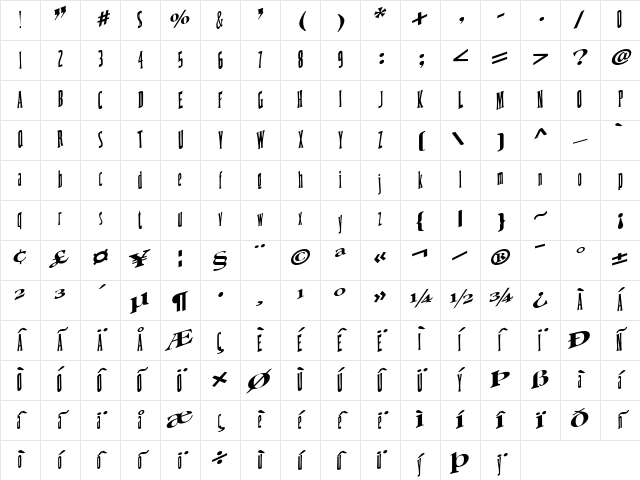
CoastWise67 Regular Free Font
CoastWise67 Regular
Complete CoastWise67 Regular glyph index. Displaying only characters natively supported by CoastWise67 Regular font.
Design Context for CoastWise67
CoastWise67 is a composed and adaptable typeface that performs quietly and consistently across a wide range of design contexts.